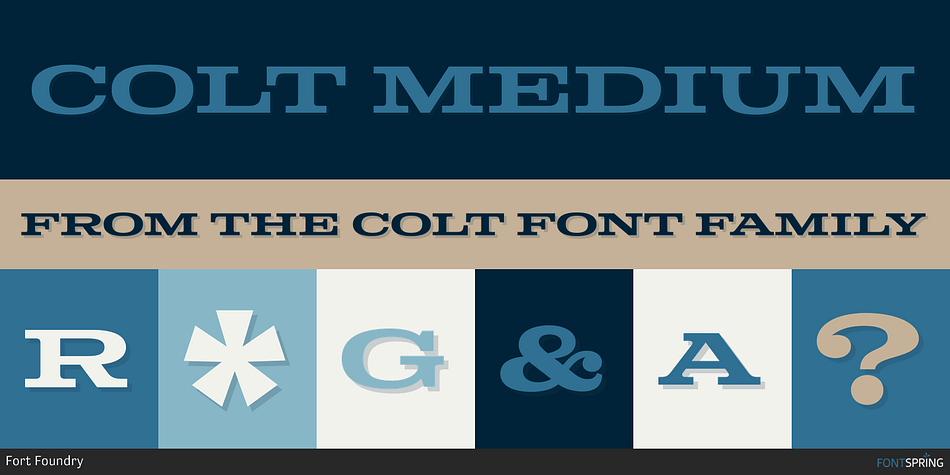
COLT MEDIUM
Colt is a western and display slab font family. This typeface has six styles and was published by Fort Foundry.
Like a muscle car from decades ago, Colt aims to balance unbridled power and finesse.
Like a muscle car from decades ago, Colt aims to balance unbridled power and finesse. The wide letterforms arose out of a love for type found on motor vehicles made in the sixties. As the typeface took shape, the characters utilized the Clarendon style with attention to its ball terminals to anchor the design. The result yields a new take on the extended slab-serif genre in a wide array of weights.
Many text or headline typefaces are created to conserve space in order to fit more characters on a line. Colt stands on the opposite side of the spectrum with generously wide letterforms. Though horizontal space is thrown out the window, this family lends itself to vertically tight spaces while retaining legibility.
Colt can work well as the primary typeface in a composition with a bent towards logotype. Or, it can play a supporting role in the design. A softer companion was also created, aptly titled Colt Soft.